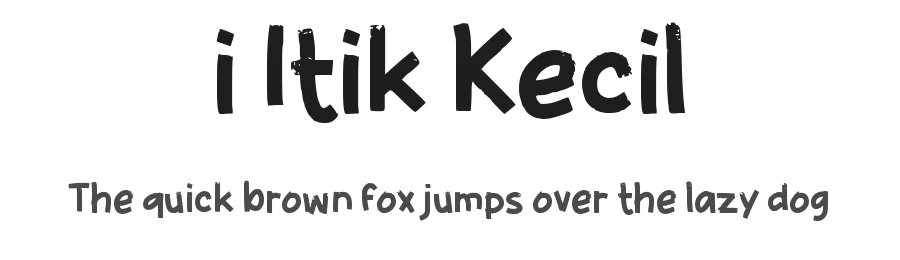
About Game Tricks Font
Game Tricks Specifications
| Font Family | Game Tricks Demo |
| Full Name | Game Tricks Demo Italic |
| Glyph Count | 194 glyphs |
| PostScript Name | GameTricksDemoItalic |
| Designer | Lukman Muhammad Fauzi & Suci Anita |
Game Tricks supports 211 languages.
Game Tricks Font is a decorative font that shines as a display or heading face. Pair it with a clean sans-serif or serif font for body text β the contrast creates a clear hierarchy while the two styles stay balanced and easy to read.
Game Tricks Font
by Noah Type